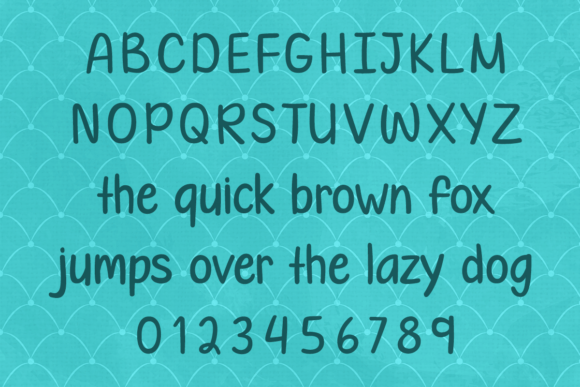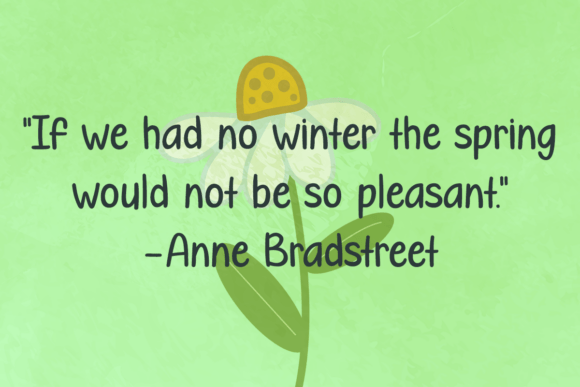
Introduction to Random Wednesday Font Font
Fonts play a crucial role in design, and the Random Wednesday Font font is a typeface that brings both character and versatility to any project. Whether you’re working on a branding project, a website, or a print design, the Random Wednesday Font font offers a unique style that can elevate your work.
Random Wednesday is a casual, handwritten font with a playful and slightly unpredictable charm.
Its natural strokes and relaxed feel make it perfect for personal projects, branding, social media, and more Add a touch of spontaneity to your designs with Random Wednesday.
Key Features of Random Wednesday Font Font
Why Choose Random Wednesday Font Font?
The Random Wednesday Font font is more than just a typeface – it’s a design tool that helps you communicate your message with style and clarity. Its unique character set and versatile design make it suitable for a wide range of applications, from elegant invitations to bold headlines.
With its carefully crafted letterforms and balanced proportions, the Random Wednesday Font font ensures readability and visual appeal across all mediums.
What makes Random Wednesday Font font special?
The Random Wednesday Font font stands out with its unique design, exceptional readability, and versatility across various design applications.